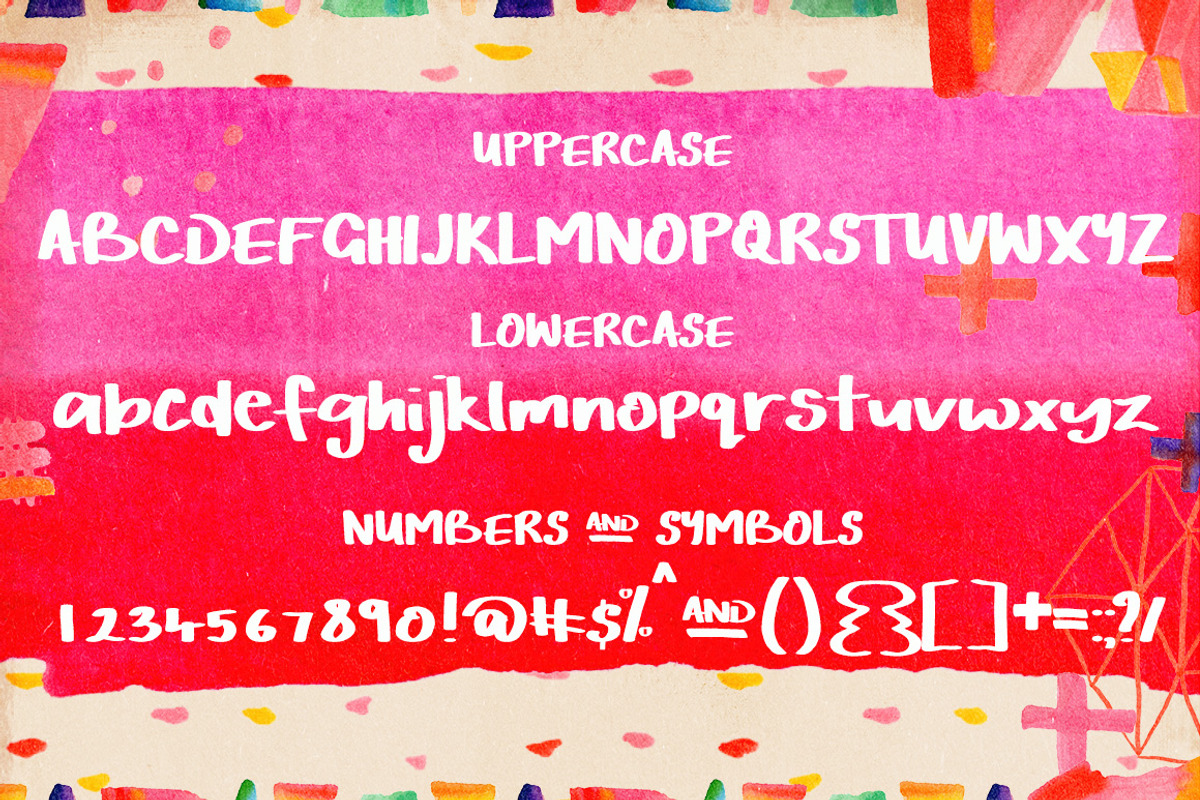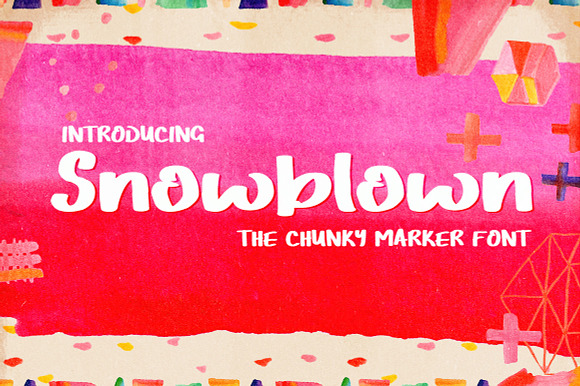
Snowblown Font
This is Snowblown. A cool hand drawn brush font. This font is part of the Gobsmacking Font Bundle here
Why Snowblown Font is worth a look
Snowblown Font by Creativeqube Design fits naturally into Branding, posters, packaging, typography.